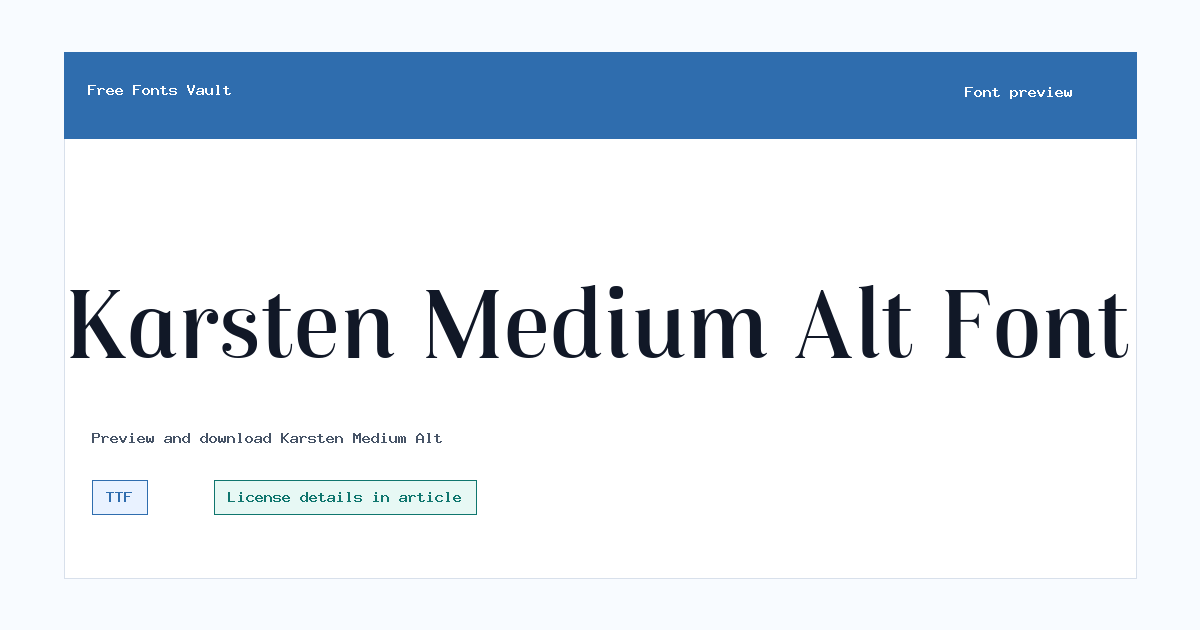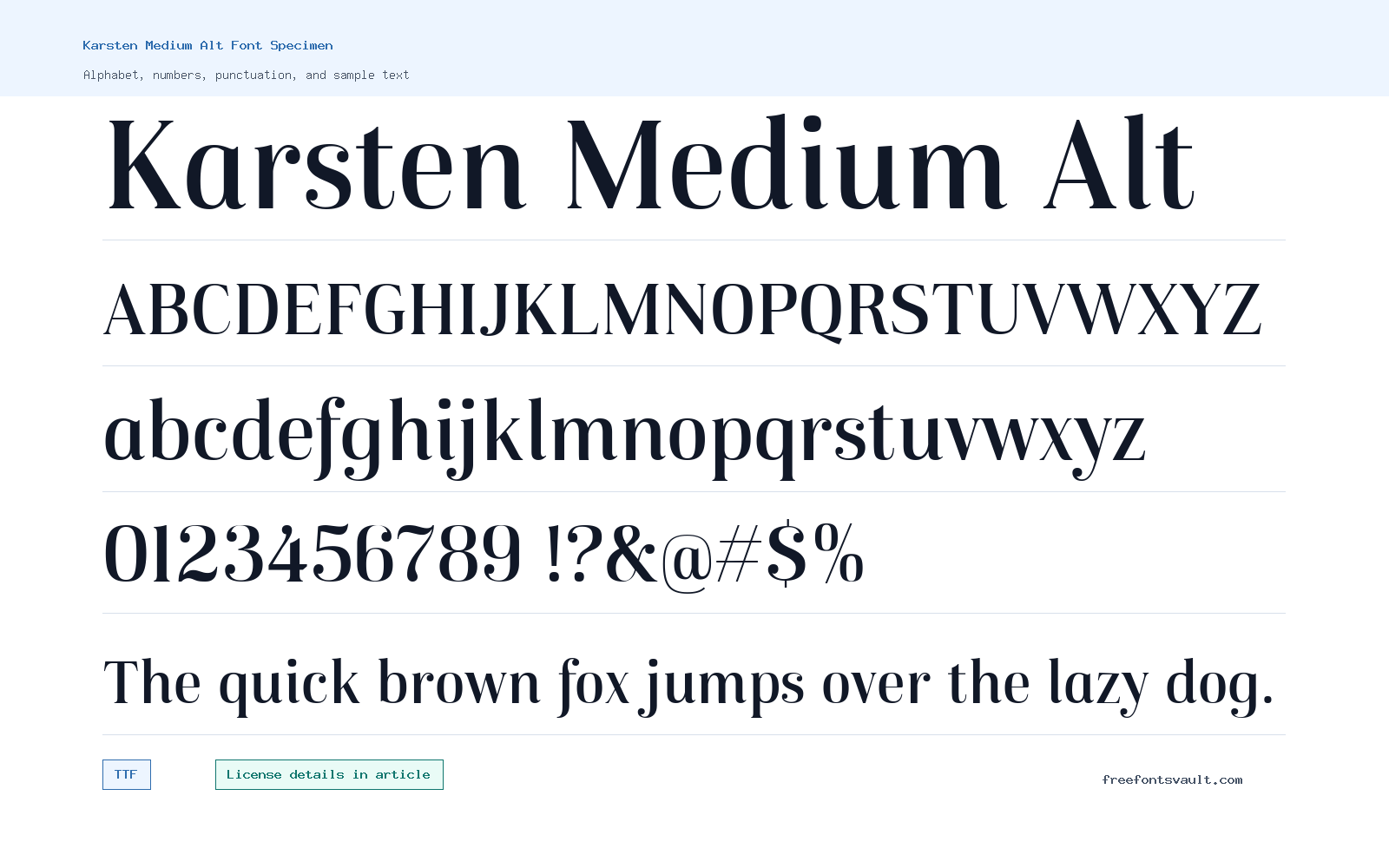
Karsten Medium Alt
Karsten Medium Alt Font
Karsten Medium Alt font.
Karsten Medium Alt is a medium-weight alternate style from the Karsten serif family by Nasir Udin. It has a refined editorial tone, with a historical touch that suits titles, covers, and polished display typography.
About Karsten Medium Alt
Karsten was inspired by lettering seen on old Dutch buildings in Java, then developed into a modern serif family. The result is a typeface with a clear historical reference but a clean enough structure for current design work. Karsten Medium Alt gives that idea a firmer voice than the thin styles: it has enough weight for confident headlines while still keeping an elegant, bookish feel.
Use this font when you want a serif that feels cultured without becoming overly decorative. It can work well for fashion magazine titles, museum or cultural posters, book covers, refined packaging, restaurant branding, and sophisticated website headings. Because this is an alternate medium style, test it with the exact words you plan to use. Pay attention to uppercase titles, accented characters, spacing, and any alternate letterforms that may change the tone of a logo or heading. For long body text, preview a full paragraph first; the style is strongest in short blocks where its details remain visible.
• Medium-weight serif style with alternate character flavor for display use
• Part of the broader Karsten family, which includes multiple weights, italics, and alternates
• Designed for refined headlines, short paragraphs, and editorial typography
• Karsten’s official family information lists extended Latin-based language support and Cyrillic support for the OpenType family
• Editorial headlines and magazine titles
• Book covers and literary layouts
• Cultural branding, museum graphics, and exhibition posters
• Elegant packaging and label design
• Sophisticated website hero text and short promotional headings
Karsten was designed by Nasir Udin and published through Nasir Udin Studio.
Try Karsten Medium Alt first in short text: names, titles, pull quotes, packaging lines, and section headings. It pairs best with a quiet sans serif or a restrained text serif so the alternate details do not compete with other decorative type. Increase letter spacing slightly for all-caps titles if the words feel dense, and test punctuation, numerals, and accented words before final artwork.
Who designed Karsten Medium Alt?
Karsten was designed by Nasir Udin and released through Nasir Udin Studio.
What kind of font is Karsten Medium Alt?
It is a serif font style from the Karsten family. The Medium Alt cut has a balanced display weight and alternate character feel, making it useful for titles and refined branding.
What is Karsten Medium Alt best used for?
It works best for editorial titles, book covers, cultural posters, refined packaging, and elegant headlines rather than plain long-form body text.